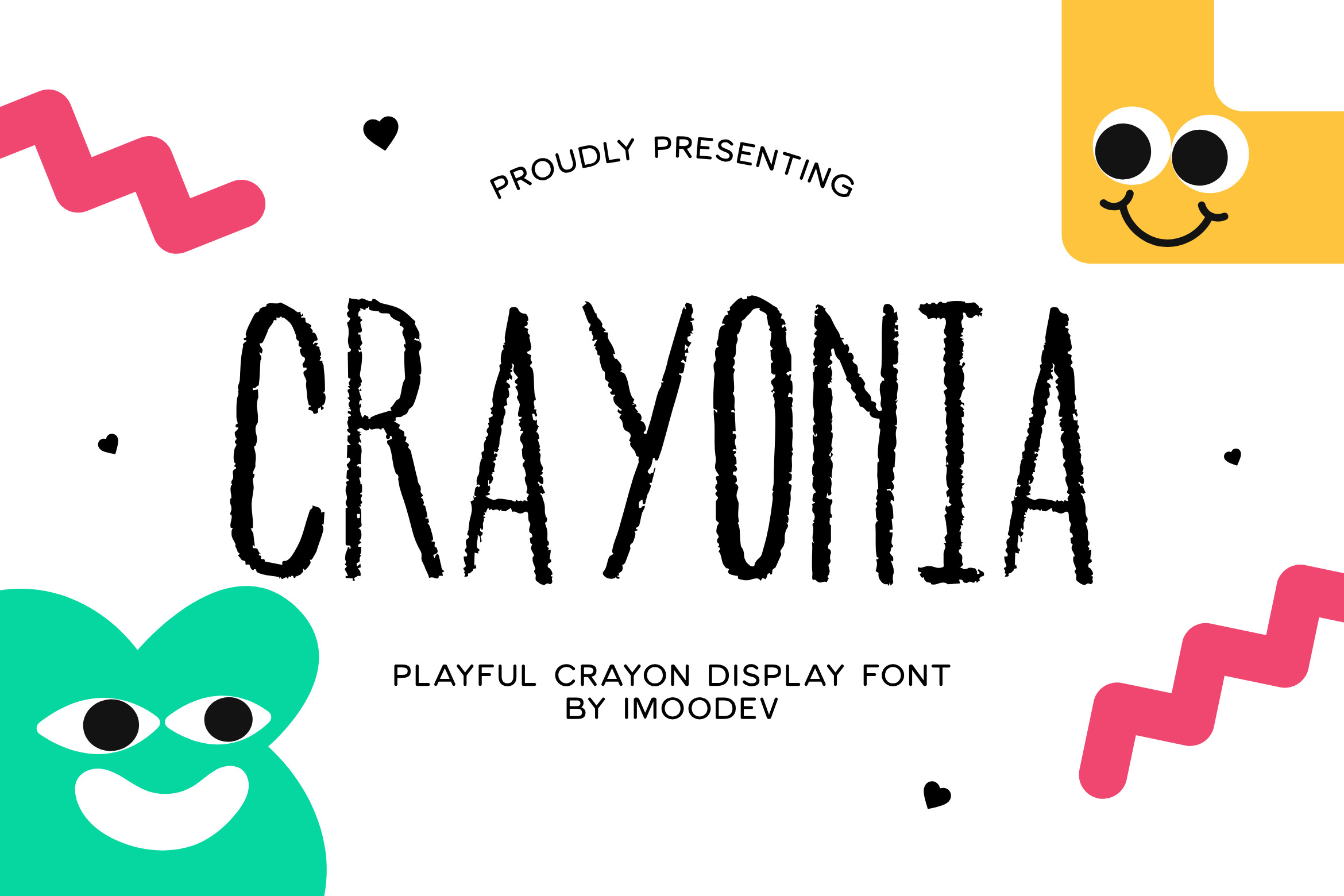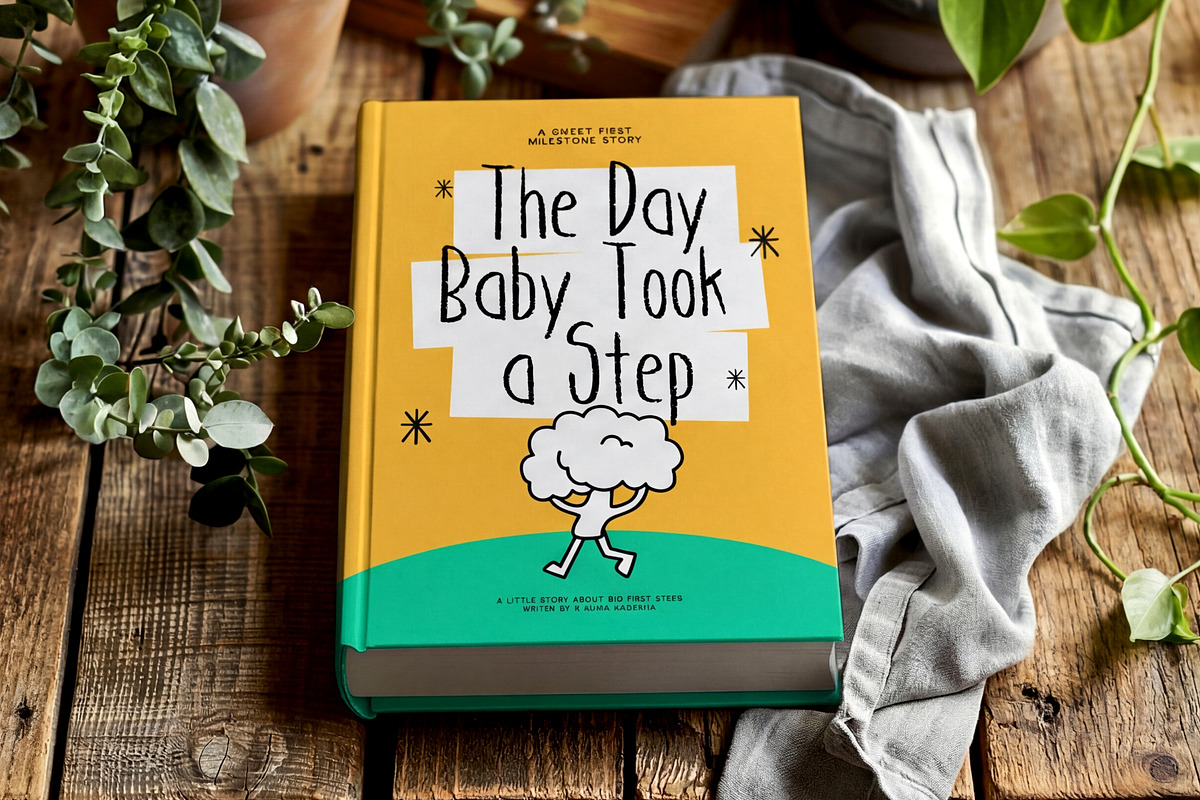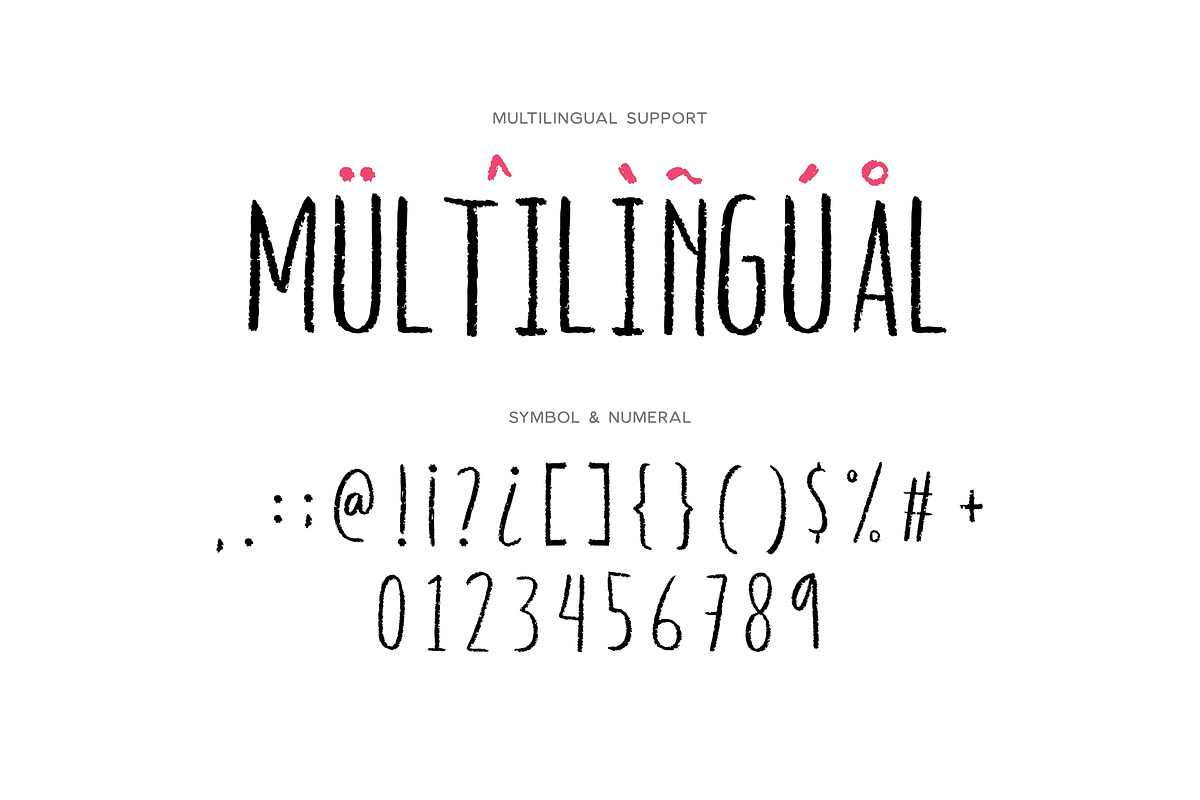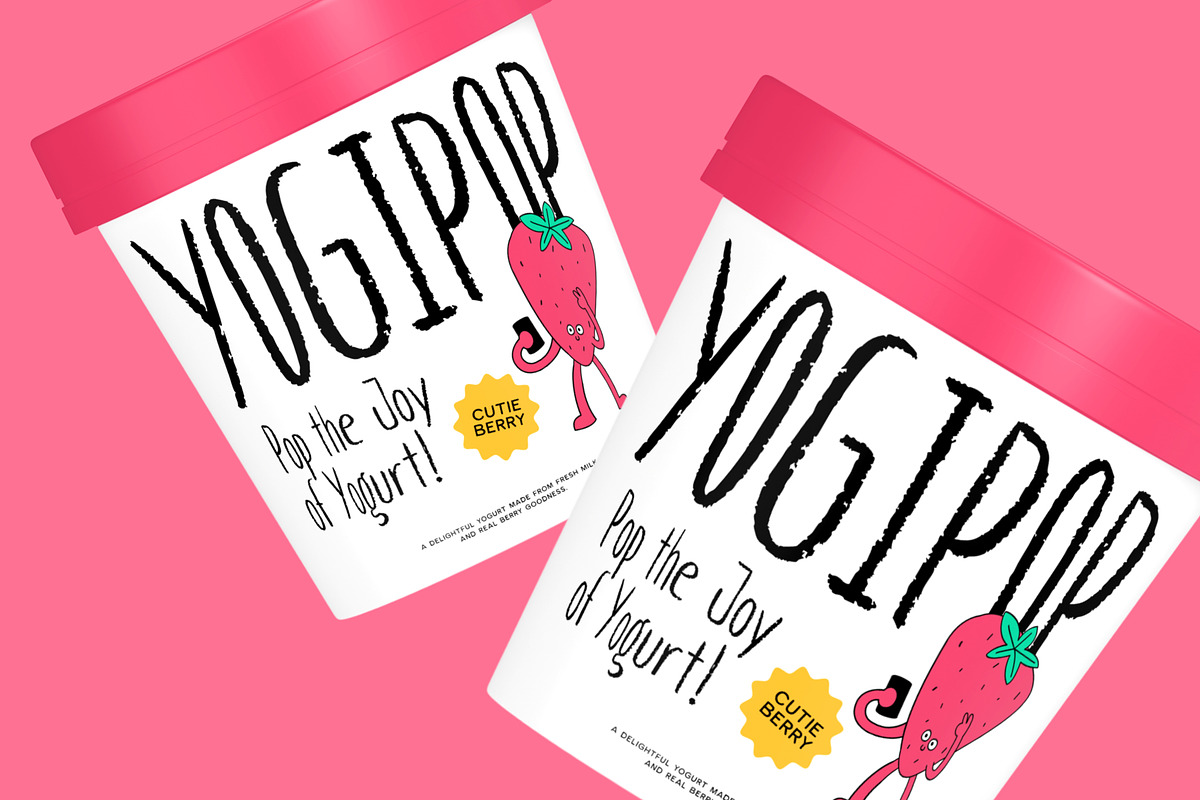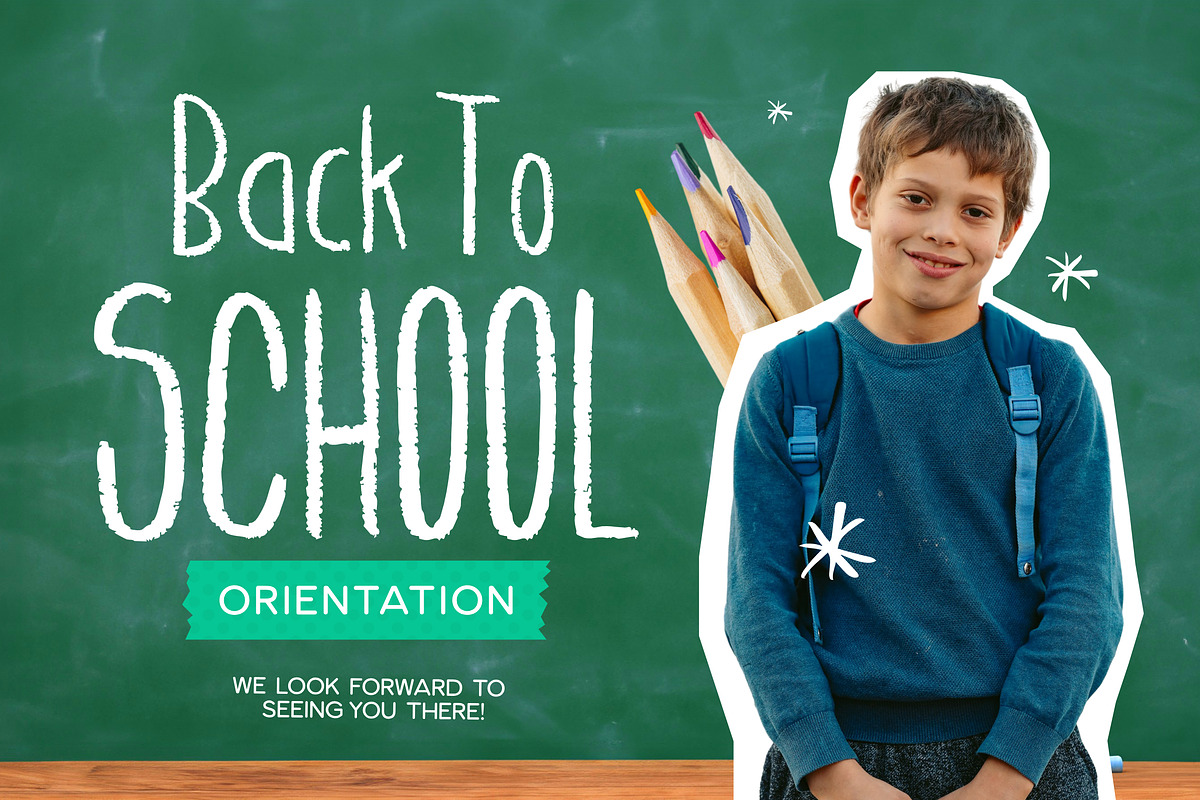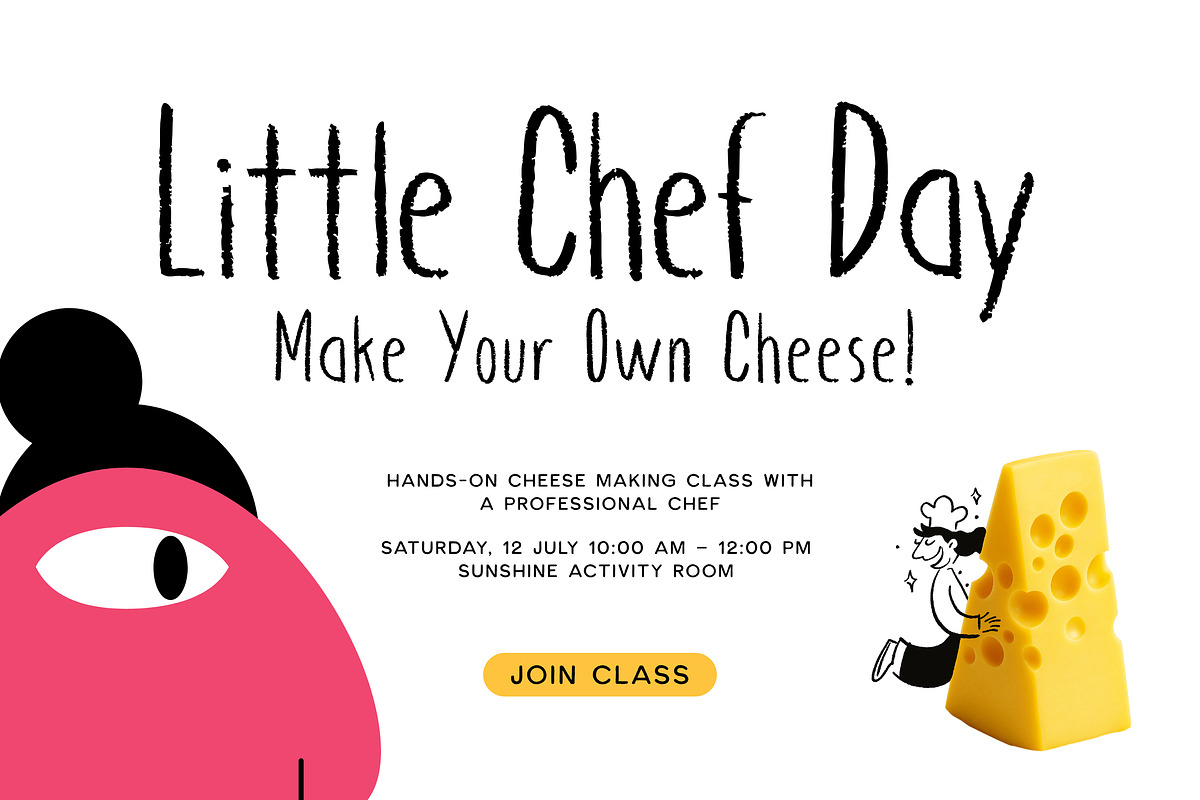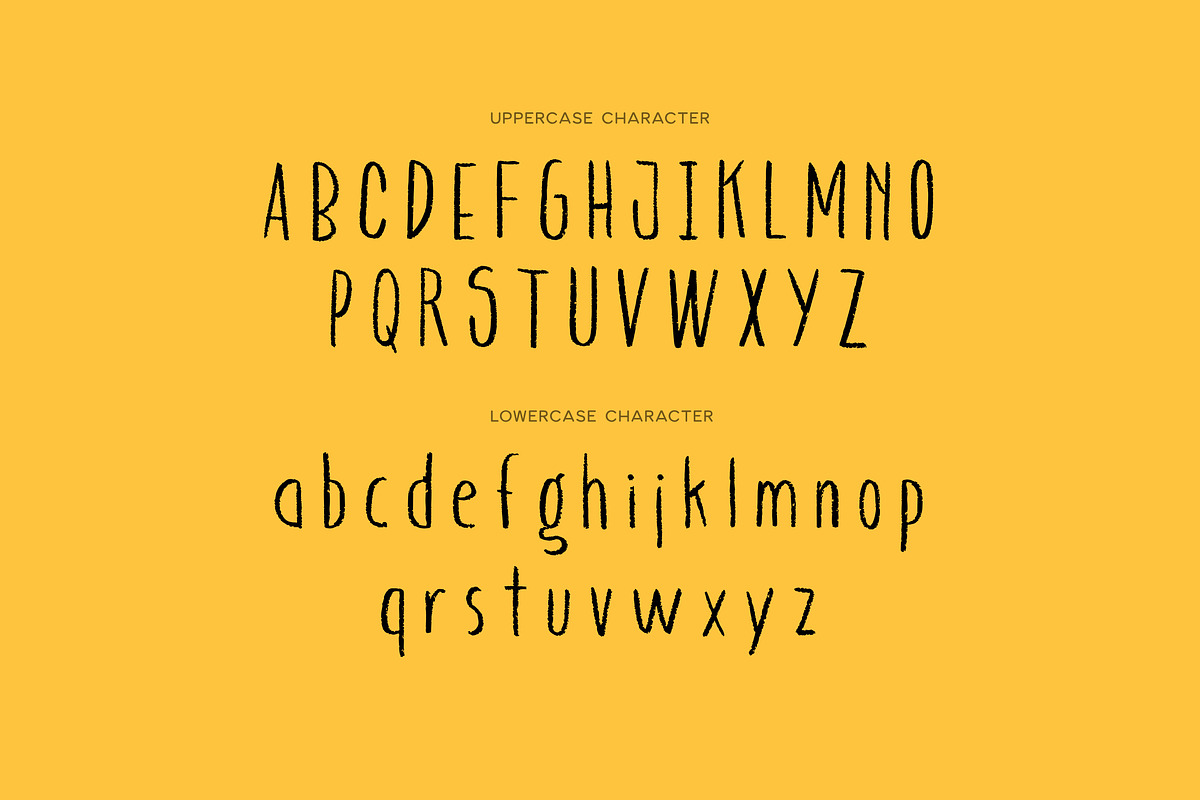
Crayonia - Hand Drawn Crayon Font
Crayonia is a charmingly hand drawn display font designed to bring the nostalgic, textured feel of wax crayons to your digital canvas. Featuring tall, condensed letterforms with authentic waxy edges and subtle pressure variations, this font perfectly captures the innocent and energetic spirit of childhood creativity.
Whether you are designing for the classroom, creating a whimsical children's book, or branding a playful craft business. It is highly versatile, including uppercase and lowercase characters, numerals, punctuation, and full multilingual support, ensuring your message is clear and characterful in any language.
- Education: "Back to School" posters, teacher resources, and classroom decor.
- Publishing: Children’s book covers and interior illustrations.
- Packaging: Whimsical branding for snacks, toys, or organic products.
- Events: Birthday invitations and community workshops.
- Social Media: Playful quotes and engaging storytelling graphics.
- Uppercase and Lowecase Characters.
- PUA Encoded Characters.
- Numerals and Punctuations.
- Alternates and Ligatures.
- Multilingual Support.